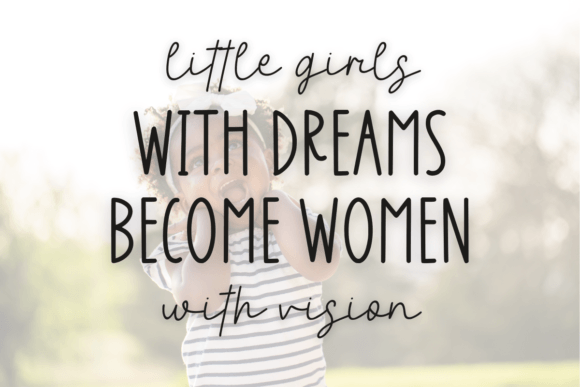
Little Girl Woodland Duo Font
Little Girl Woodland, an enchanting duo farmhouse font masterfully interweaves a sans handwritten with a monoline. This font duo is the perfect go-to for adding a playful touch to your designs, making it a fantastic choice for upbeat quotes, cool t-shirts, customizable tote bags, cheerful greeting cards, and whimsical mugs. Little Girl Woodland effortlessly brings fun and charm to any design palette.